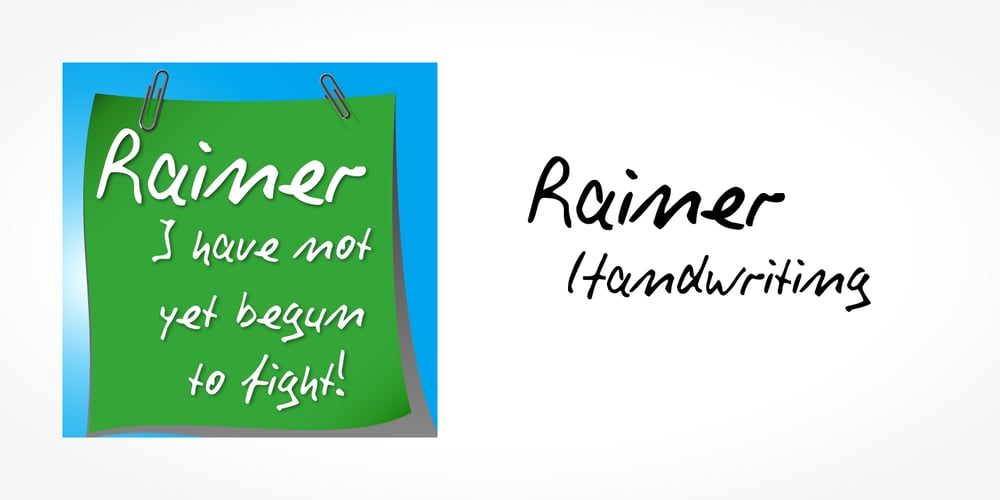
Rainer Handwriting
Rainer Handwriting font
Rainer Handwriting Font Family was designed by published by SoftMaker. Rainer Handwriting contains 1 styles and family package options. Digitized handwriting fonts are a perfect way to give documents the “very special touch”. Invitations look simply better when handwritten than when printed in bland Arial or Times New Roman. Short handwritten notes look authentic and appealing. There are numerous occasions where handwritten text makes a better impression. “Rainer Handwriting” is a beautiful typeface that mimics true handwriting closely. Use Rainer Handwriting to create stunningly beautiful designs easily.